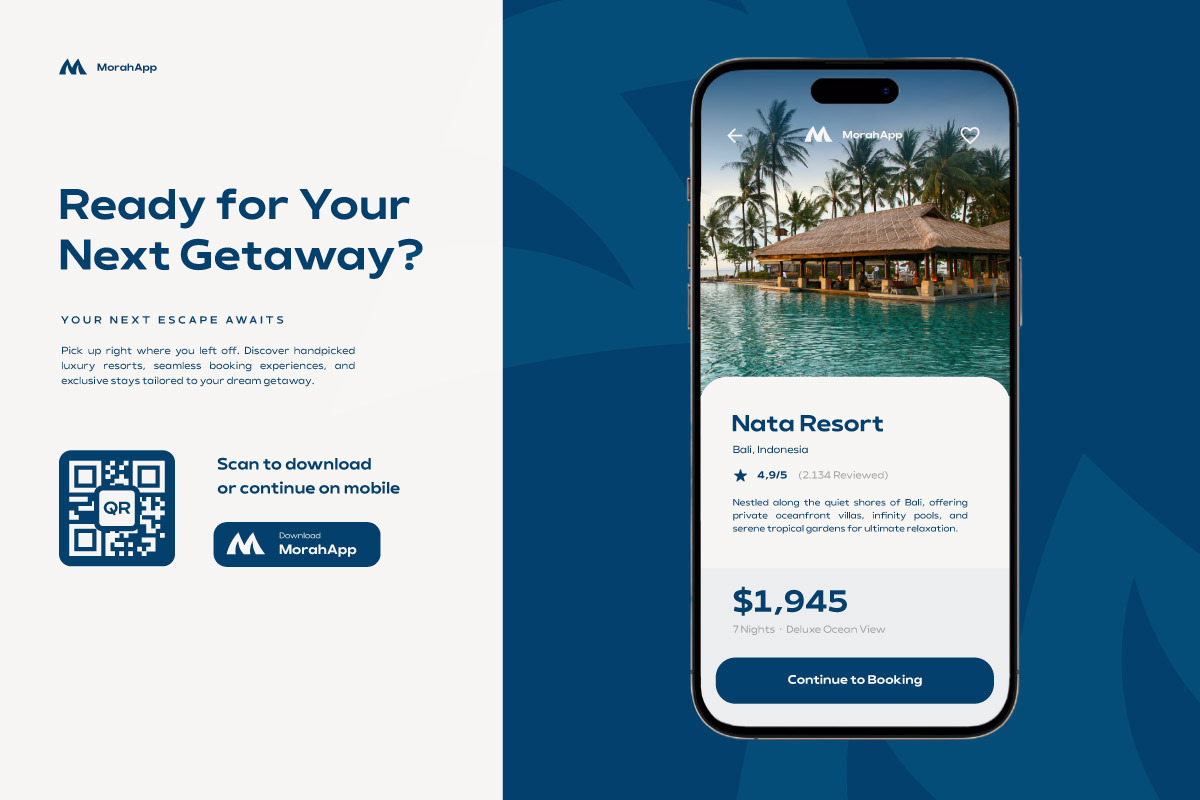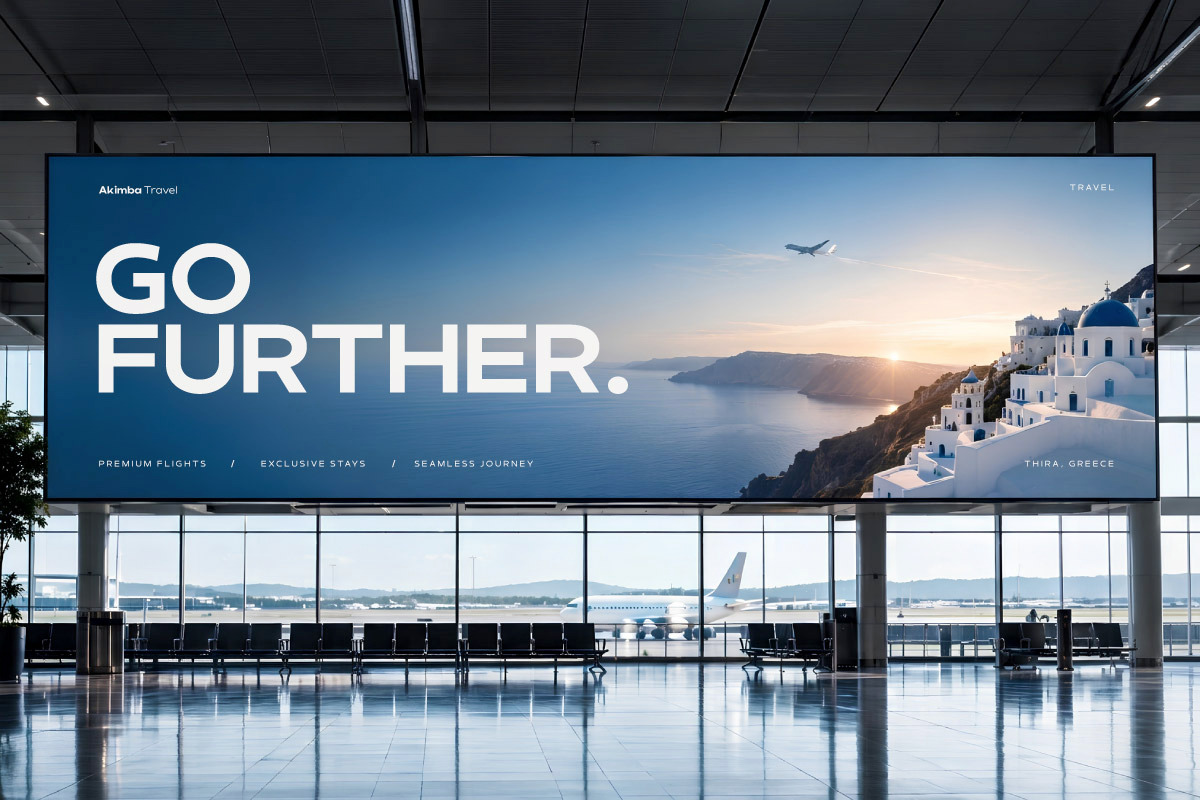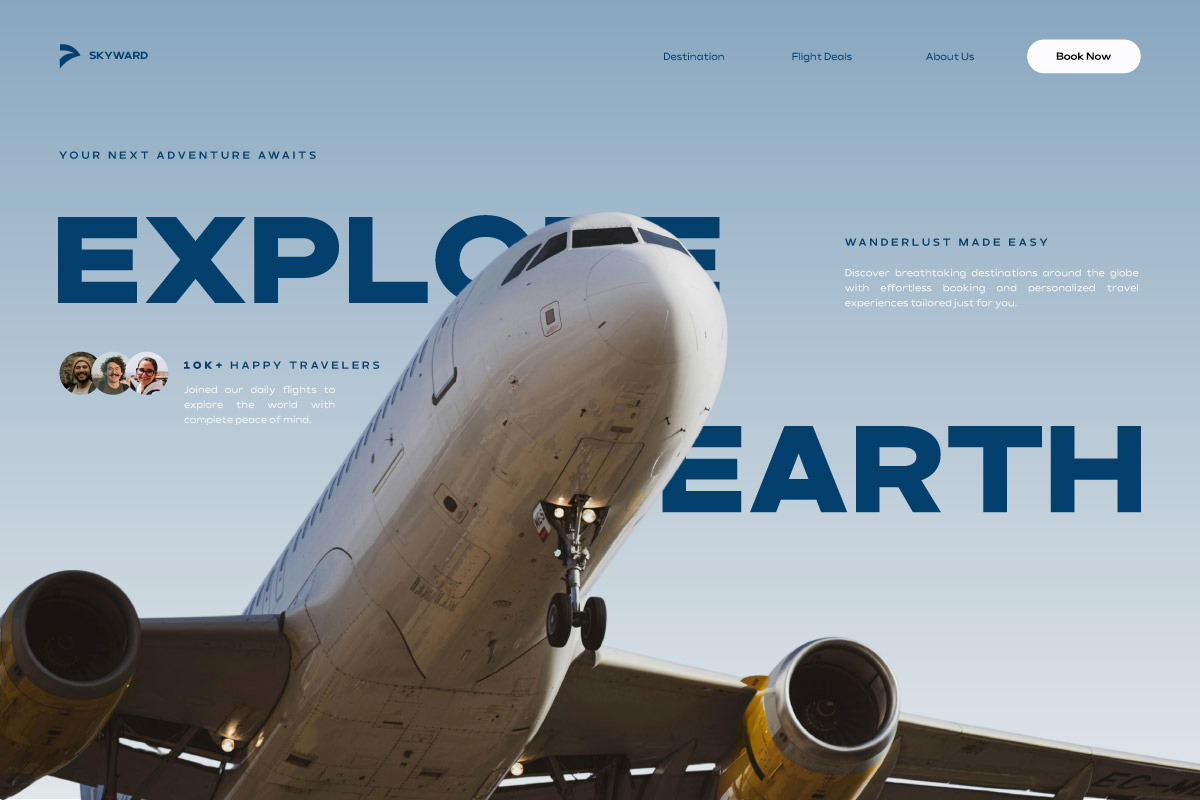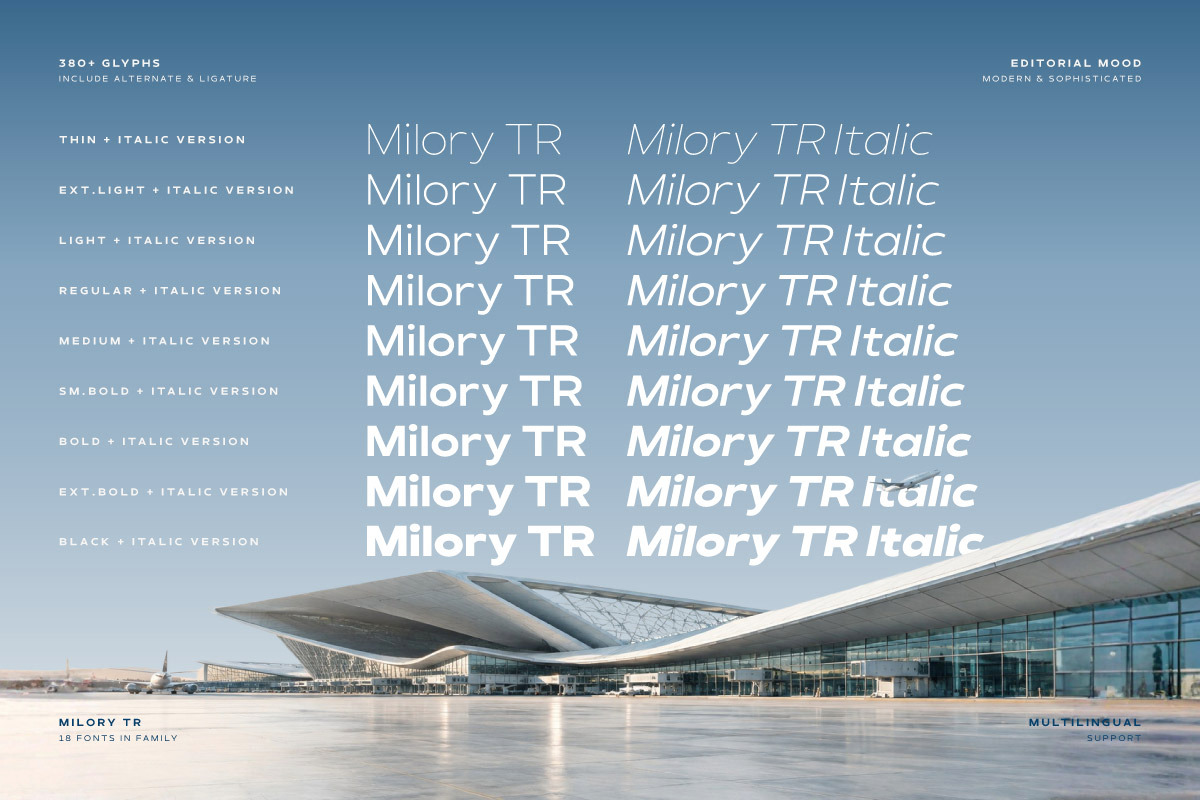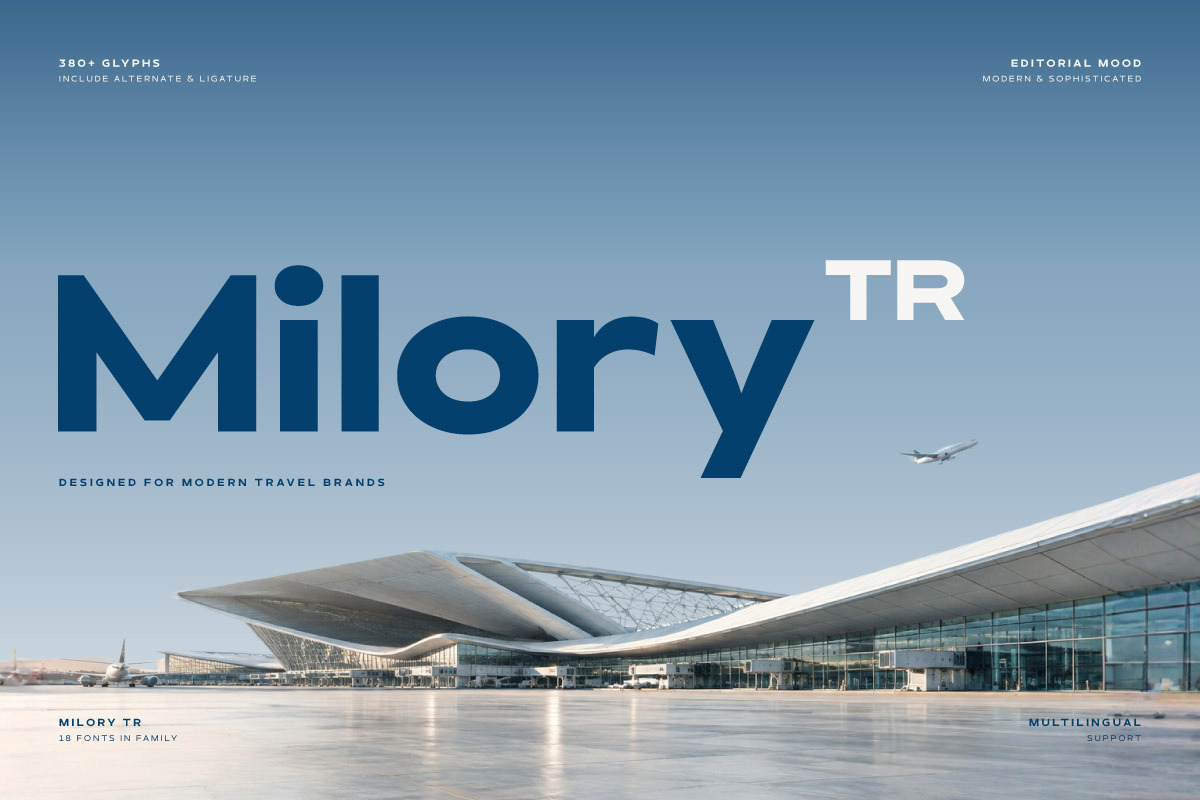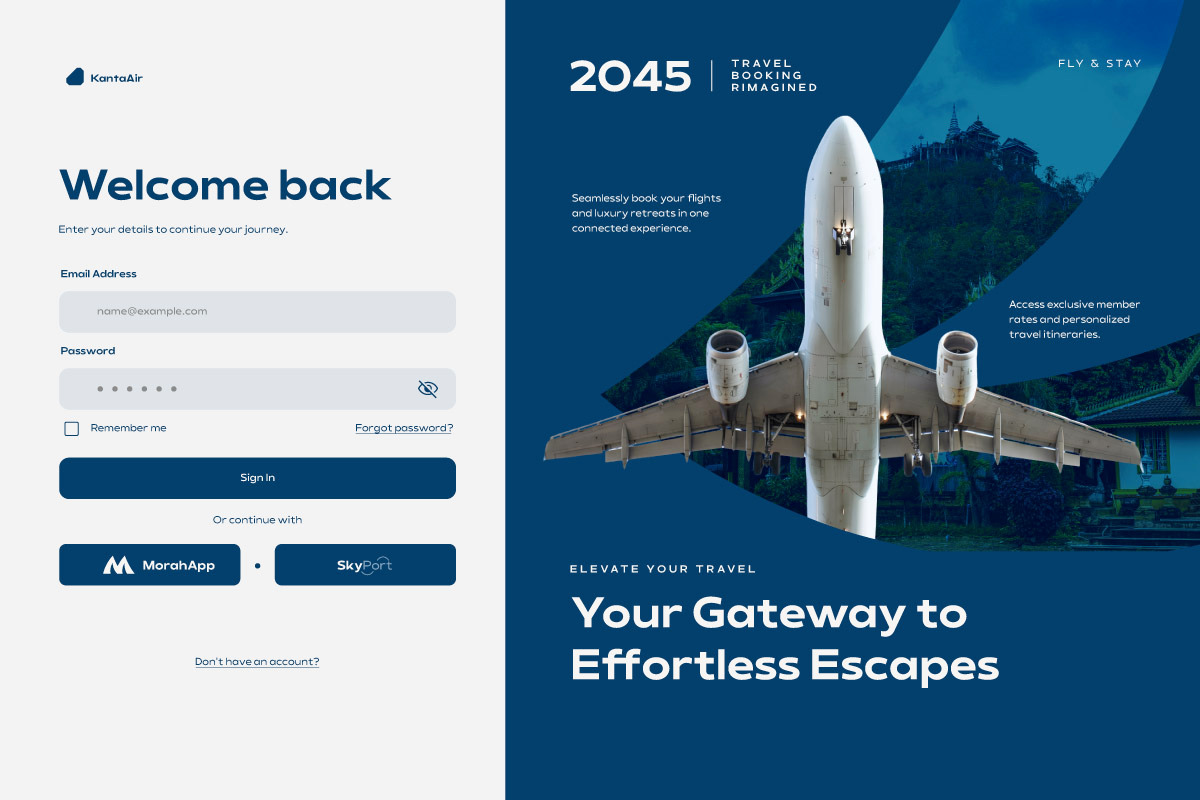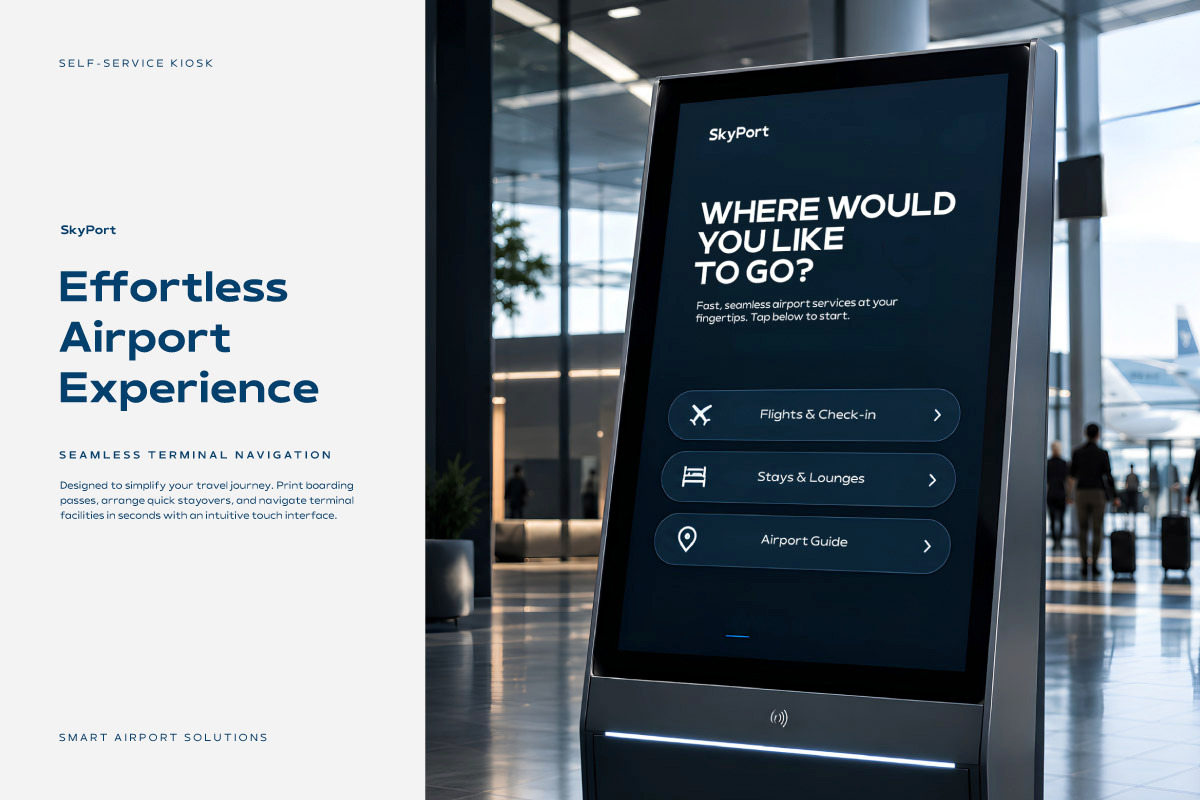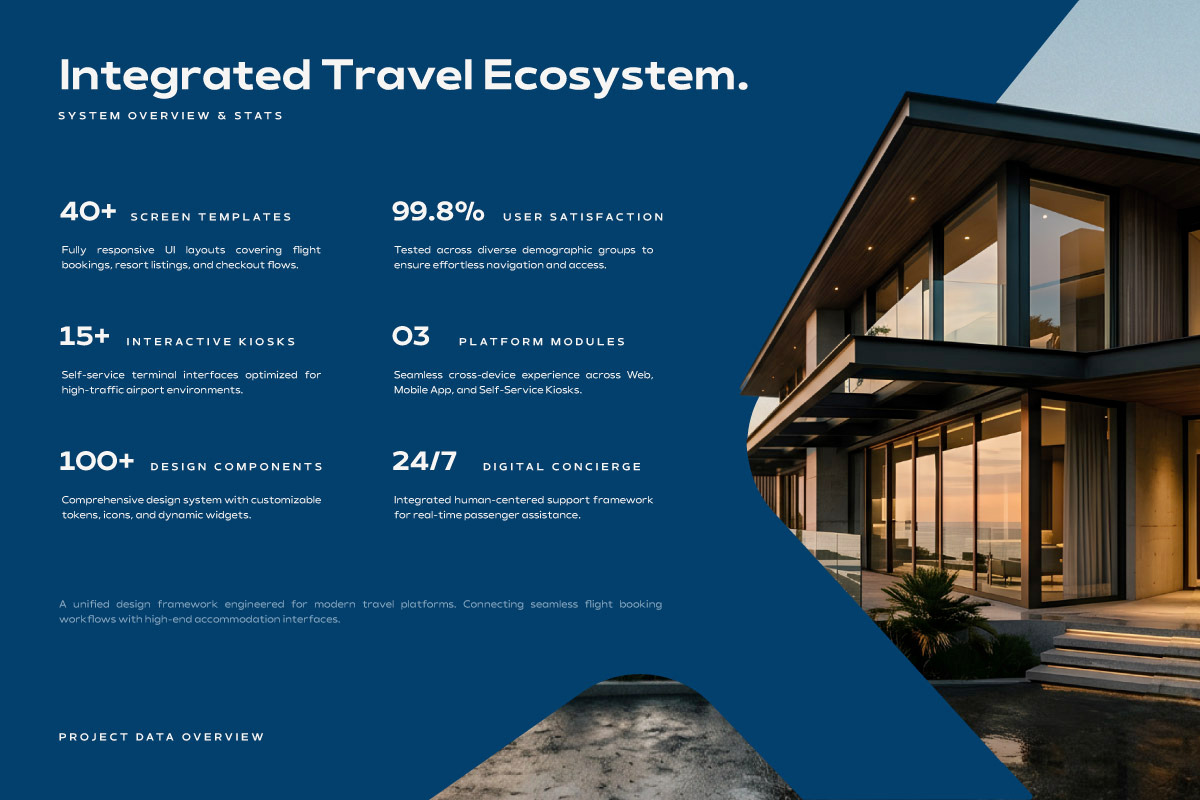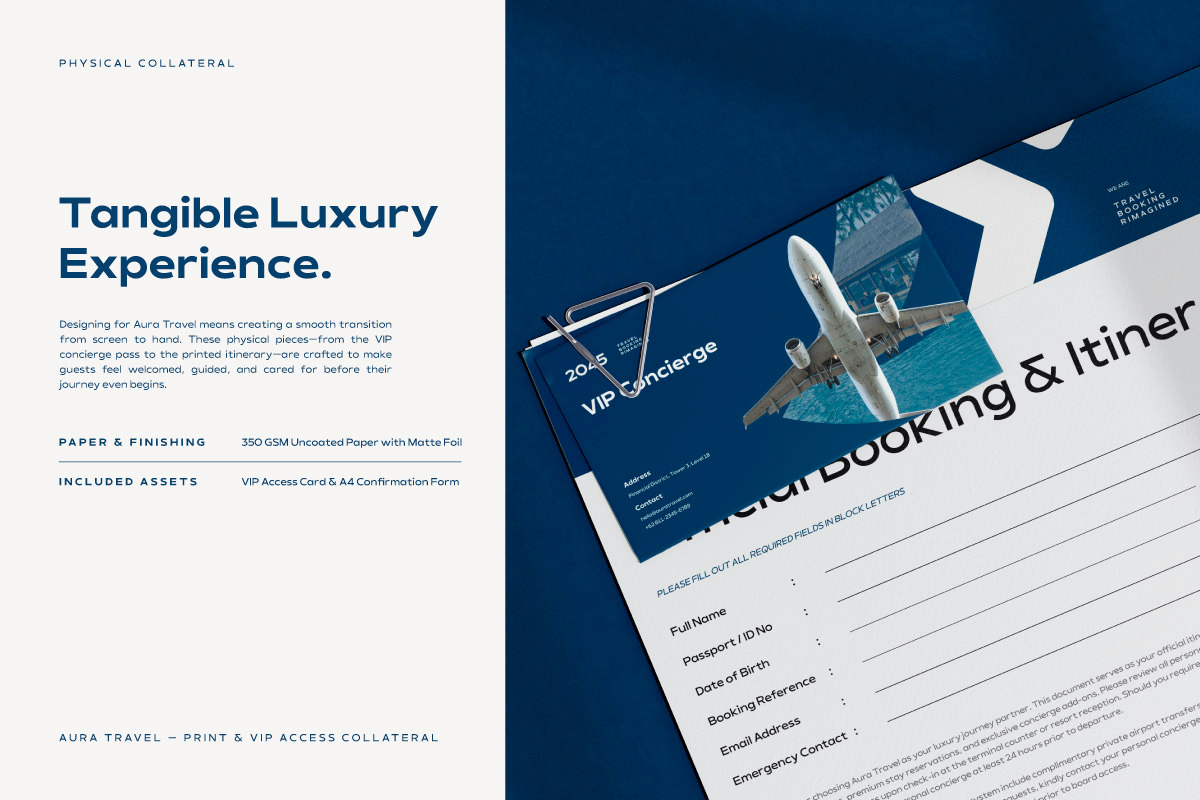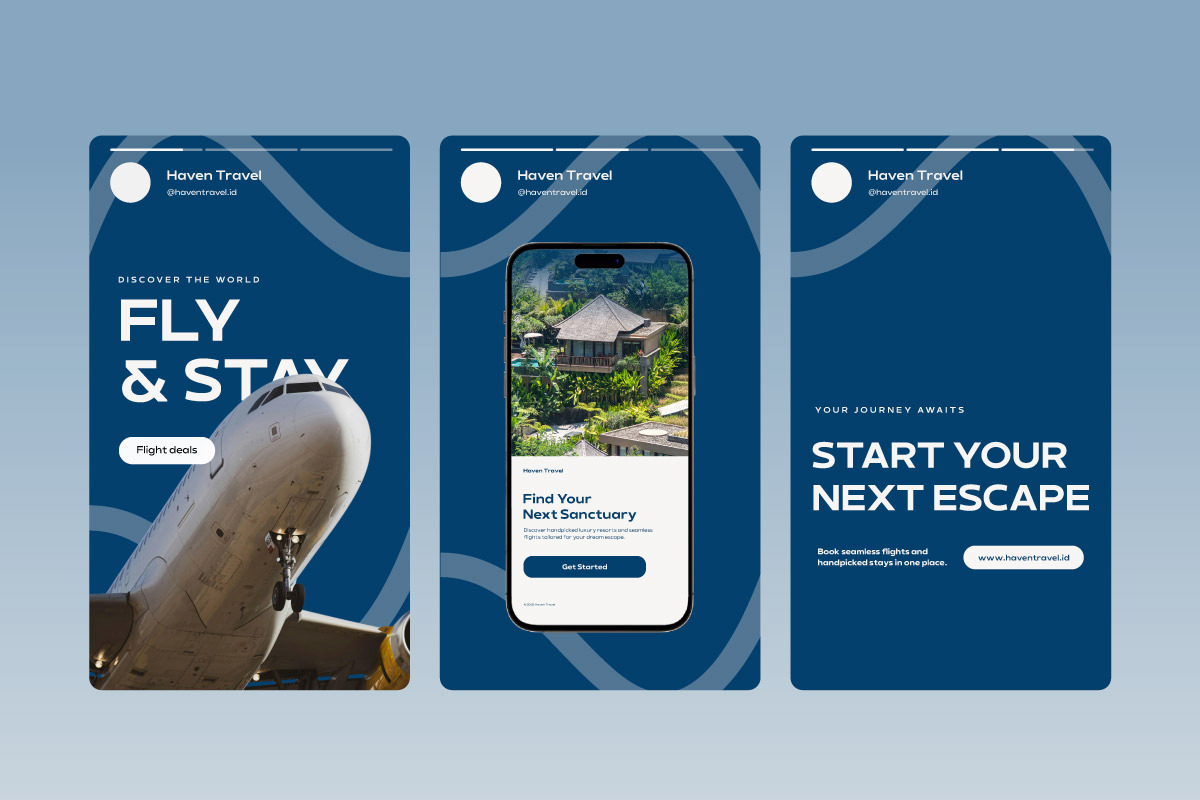
Milory TR - Wide Geometric Sans Font
Milory TR emerges as a wide-proportion geometric sans-serif font specifically engineered to meet the visual standards of the modern travel and tourism industry. Characterized by clean lines, strong geometric precision, and a smart aesthetic, this typeface exudes a professional yet premium tone. Milory TR serves as the perfect typographic foundation for building user trust and comfort within digital ecosystems.
Designed for optimal legibility across high-resolution screens and printed materials, Milory TR is the ultimate choice for premium booking platforms, automated self-service airport kiosks, travel aggregators, and cruise line apps. Its expanded letterforms ensure that critical information—ranging from airline flight schedules and luxury resort listings to hotel booking services—is delivered with absolute clarity, intuitive navigation, and an elegant appearance.
Equipped with 18 style variations (from Thin to Black, including Italics), ligature features, and a comprehensive set of 380+ glyphs with multilingual support, this font offers limitless flexibility for UI/UX and brand identity designers. Elevate the visual quality of your website, social media assets, and digital tourism services with the clean, sophisticated, and futuristic typographic touch of Milory TR.
- PUA Encoded: All glyphs are fully accessible without any additional software.
- Multilingual Support: Fully supports 85+ languages, including:
Afrikaans, Albanian, Asu, Basque, Bemba, Bena, Breton, Catalan, Chiga, Cornish, Croatian, Czech, Danish, Dutch, Embu, English, Esperanto, Estonian, Filipino, Finnish, French, Friulian, Galician, Gusii, Hungarian, Indonesian, Irish, Italian, Kabuverdianu, Kalenjin, Kamba, Kikuyu, Kinyarwanda, Latvian, Lithuanian, Lower Sorbian, Luo, Luxembourgish, Luyia, Machame, Makhuwa-Meetto, Makonde, Malagasy, Maltese, Manx, Meru, Morisyen, North Ndebele, Norwegian Bokmål, Norwegian Nynorsk, Nyankole, Oromo, Polish, Portuguese, Quechua, Romanian, Romansh, Rombo, Rundi, Rwa, Samburu, Sango, Sangu, Scottish Gaelic, Sena, Serbian, Shambala, Shona, Slovak, Slovenian, Soga, Somali, Spanish, Swahili, Swedish, Swiss German, Taita, Teso, Turkish, Upper Sorbian, Uzbek (Latin), Volapük, Vunjo, Walser, Zulu.